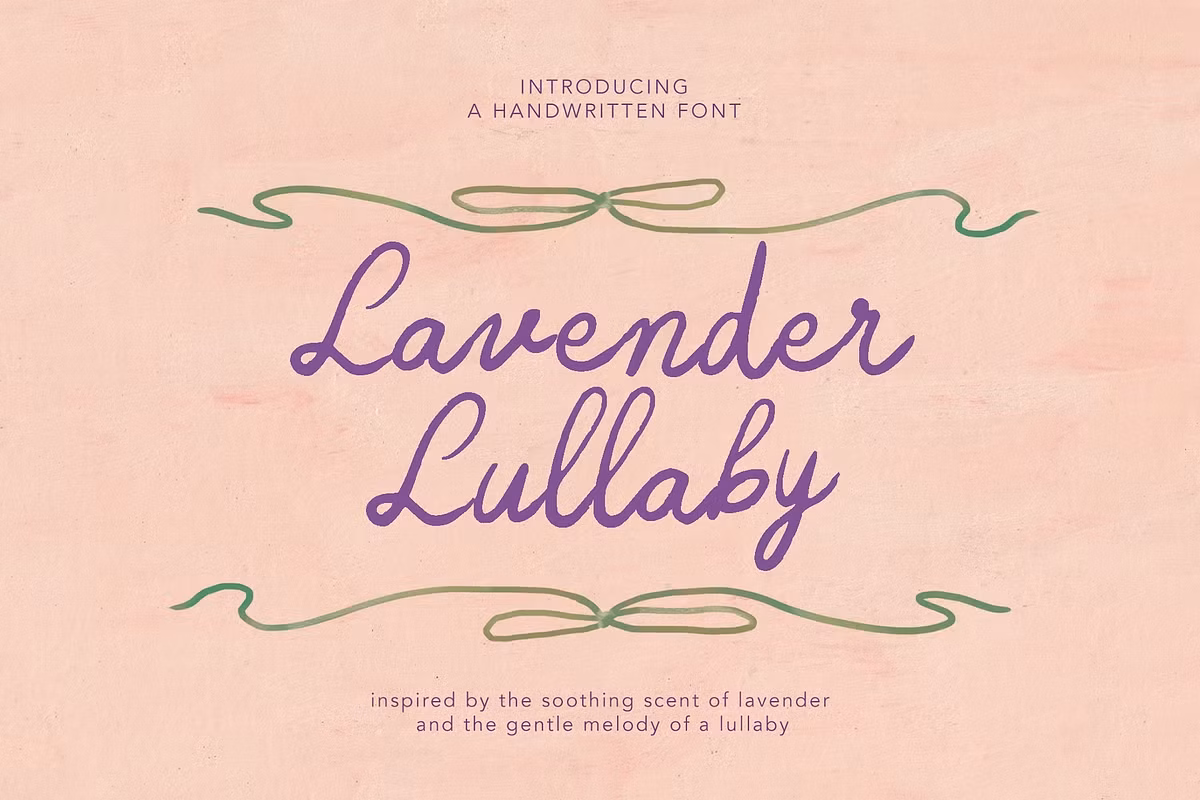
Lavender Lullaby Handwritten Font Free Download is a soft, dreamy script typeface that captures the warmth and whimsy of a handwritten note. With its gentle curves, flowing strokes, and delicate charm, this font is perfect for wedding invitations, baby announcements, personal branding, greeting cards, and lifestyle blog headers. It adds a cozy, heartfelt touch to any project.
Designed to balance elegance with playfulness, Lavender Lullaby is both legible and expressive, making it ideal for designers who want a font that feels both personal and polished.